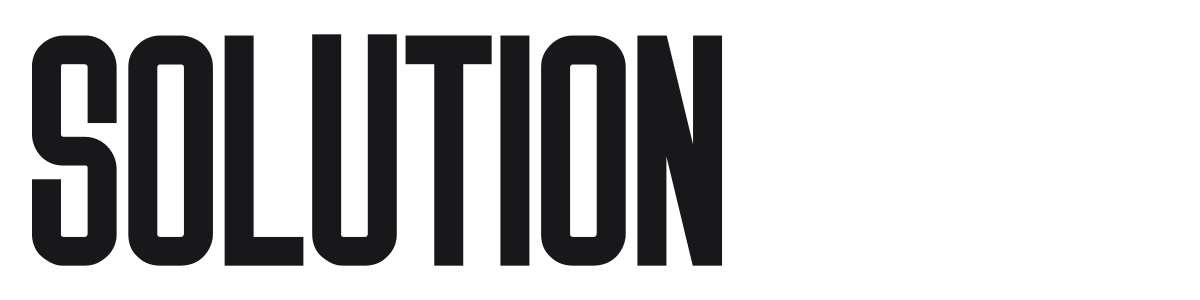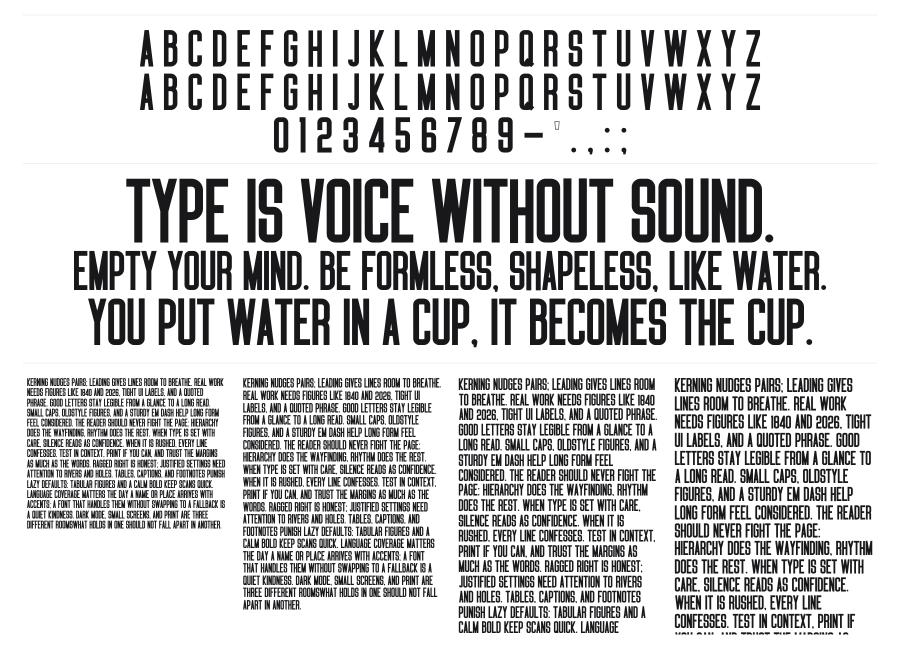
Solution
Solution is a heavy condensed grotesque with extreme vertical compression and a blunt, no-nonsense weight. Its near-monoweight strokes and tight counters give it a dense, high-impact presence that dominates at large sizes. Strong in sports branding, editorial headlines, and anywhere bold authority is the goal.